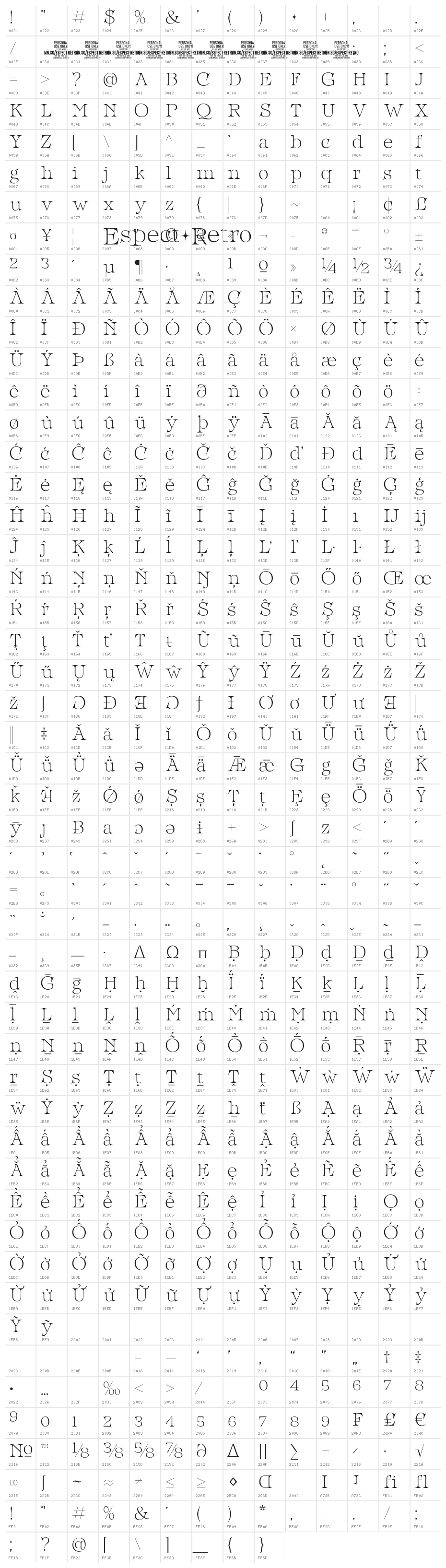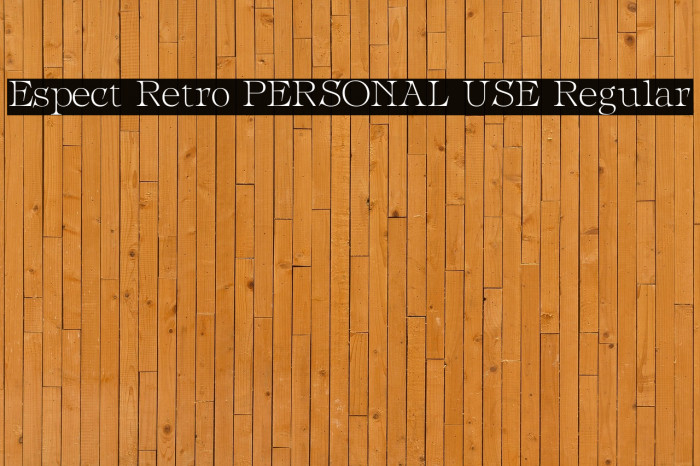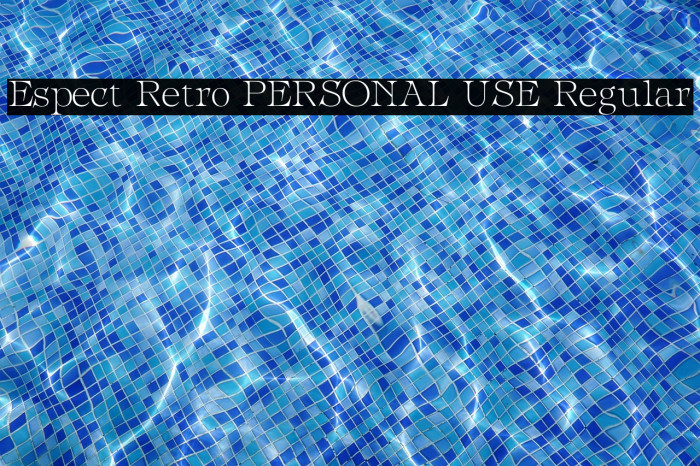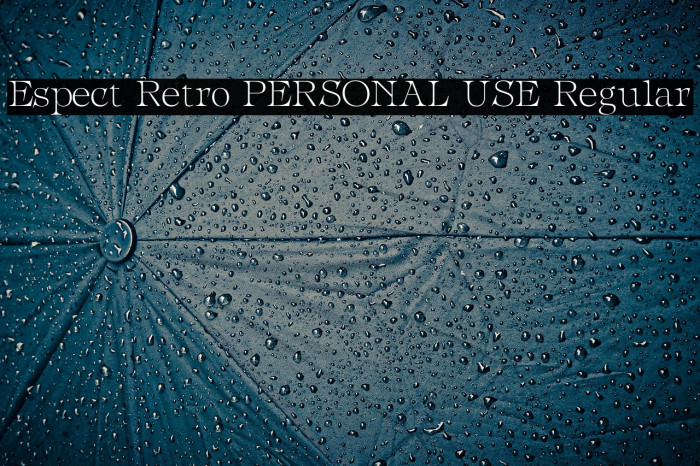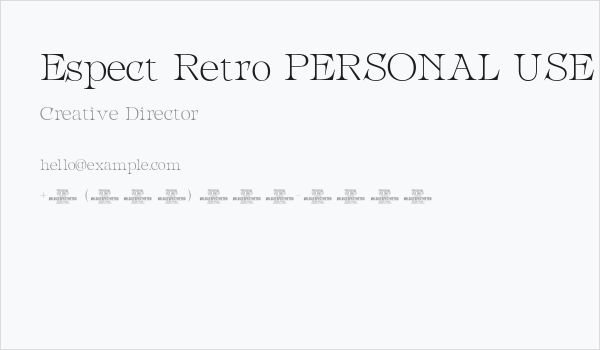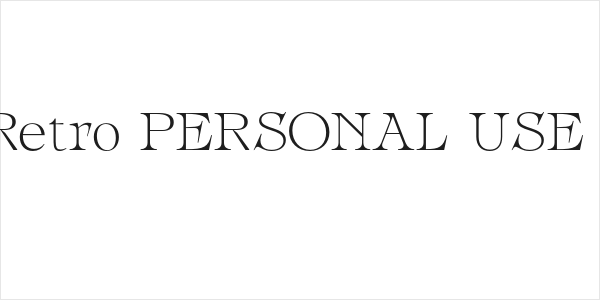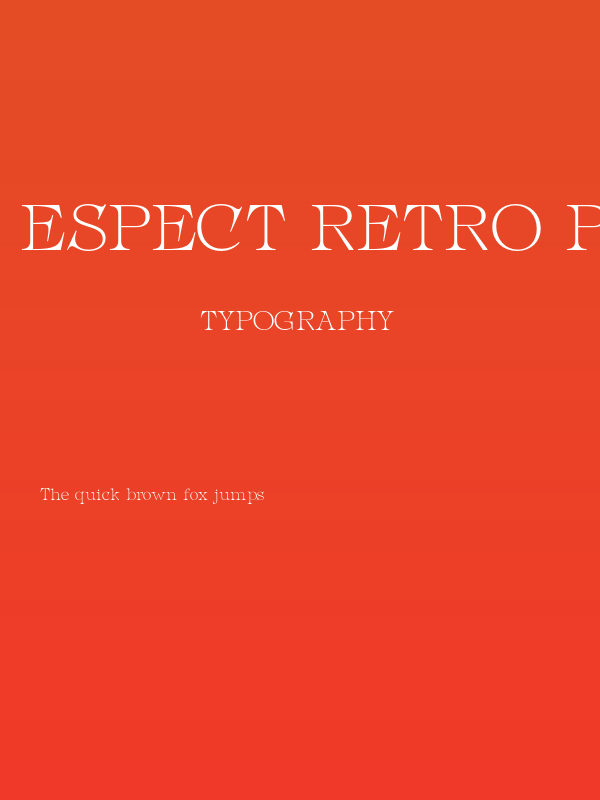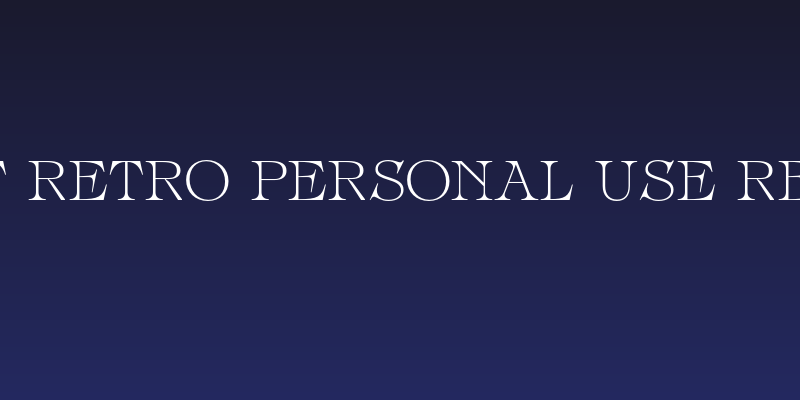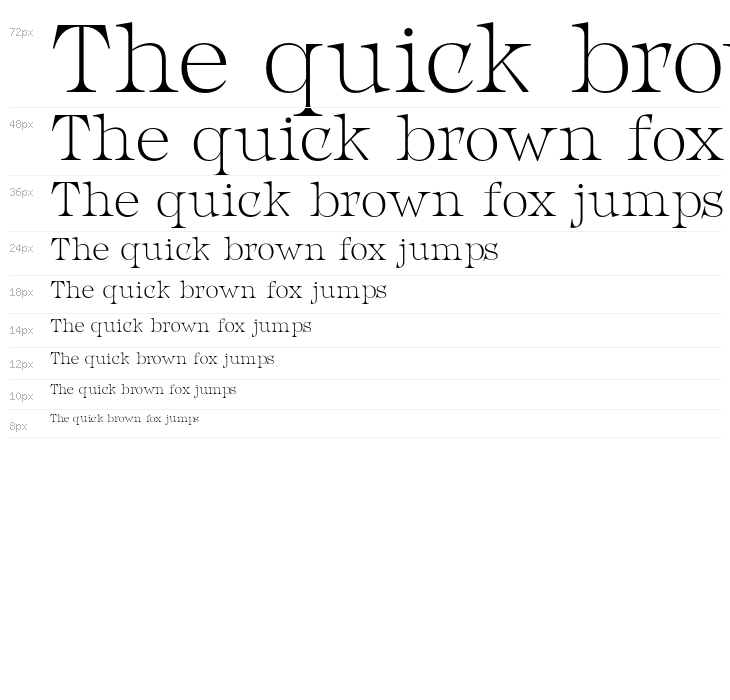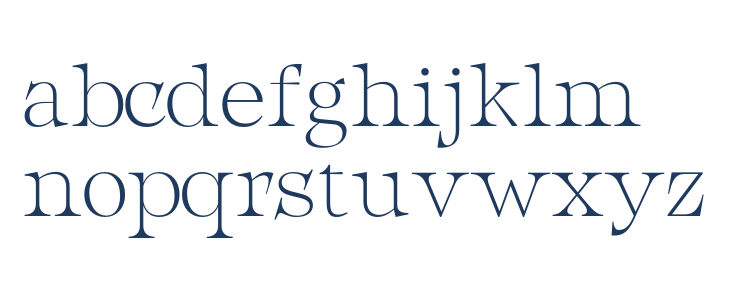
Espect Retro PERSONAL USE Regular Font
Espect Retro PERSONAL USE Regular Description
This font exhibits a classic serif style with a modern twist, characterized by its elegant curves and sharp serifs. The uppercase letters are bold and commanding, while the lowercase letters maintain a refined and sophisticated appearance. The numerals and special characters are designed with a consistent style, ensuring uniformity across all glyphs. The overall aesthetic is reminiscent of vintage typography, yet it maintains a contemporary feel suitable for various design applications.